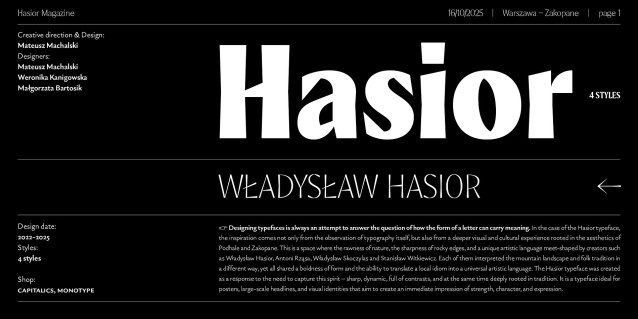
Hasior Font
Hasior Font typeface was created as a response to the need to capture this spirit – sharp, dynamic, full of contrasts, and at the same time deeply rooted in tradition. It is a typeface ideal for posters, largescale headlines, and visual identities that aim to create an immediate impression of strength, character, and expression. The project was creatively directed by Mateusz Machalski, with contributions from Weronika Kanigowska and Małgorzata Bartosik.